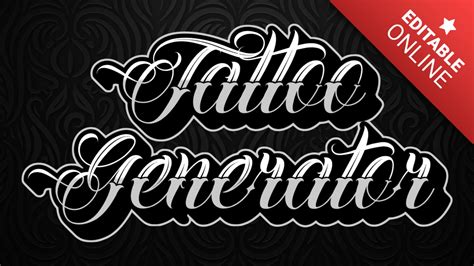
Tattoo Designs Font Generator, This font is perfect for designing greeting cards, logos, and even business cards. Find and download the right font for your next tattoo.
Once you create a piece of artwork that you like you can save it to your computer or host it with us for free in one click. This is not just a gallery! Fortunately, we have many unique tattoo font styles for men and women, such as calligraphy, cursive, and traditional styles.
As you’ll see, the enlargement shows up “distortion free”. Tattoo lettering designer (or free tattoo font generator if you prefer) tattoo font generator allows you to generate tattoo lettering designs by selecting the font that you want to use, the size, color and the text. This tattoo font includes 2 types of each letter, uppercase & lowercase characters, punctuation and numerals. Unlike font generators on other sites that use free fonts, we use three fonts carefully selected from our 50 professional fonts.
1001 free fonts offers the best selection of tattoo fonts for windows and macintosh. Once you are satisfy, you can print. Using our library of fonts, artwork & effects you can type any word or phrase & style it to your liking. To generate your custom text. You can also find the best fonts for your project.
Gibrael is a tattoo script font with an artistic handwritten design. It is simple to use this product, while enjoying the free tattoo design. As you’ll see, the enlargement shows up “distortion free”. Our gangster tattoo font generator can make quick work of browsing our available gangster tattoo fonts. You can also choose custom font and background colors.
1001 free fonts offers the best selection of tattoo fonts for windows and macintosh. Looking for tattoo lettering fonts? Using our library of fonts, artwork & effects you can type any word or phrase & style it to your liking. Fonts for tattoos, drawings and decorations | font & text generator. Feel free to try it!
This font is perfect for designing greeting cards, logos, and even business cards. Select the font size suitable. It is simple to use this product, while enjoying the free tattoo design. After creating your unique tattoo design using a tattoo font you can print or download it. The following tool will convert your text into graphics using tattoo fonts.
Gangster fonts are designed to instill a feeling of manhood, confrontation. And although we only have a limited number of tribal fonts at our site, there’s tons more you can find for free on the internet. 237 free tattoo fonts · 1001 fonts It is simple to use this product, while enjoying the free tattoo design. Downloading/printing your image or.
Downloading/printing your image or a font will open a new internet window. This exciting online product has empowered you to design your own tattoo. Using our library of fonts, artwork & effects you can type any word or phrase & style it to your liking. With our online font generator for tattoos, you’ve got over 150 fonts to choose from,.
This font is perfect for designing greeting cards, logos, and even business cards. It is made to decorate your logos, posters, merchandise, headlines and, surely, sketches! This is not just a gallery! Download the font you used. The font letters themselves generally have super thin trails coming off them, like something that could “cut into the wind”.